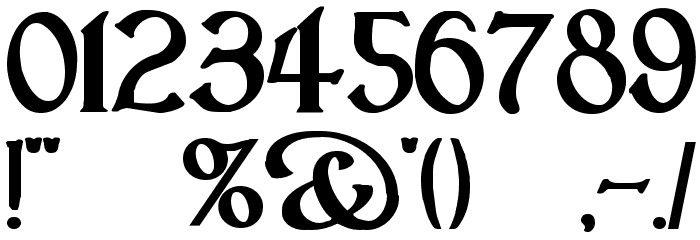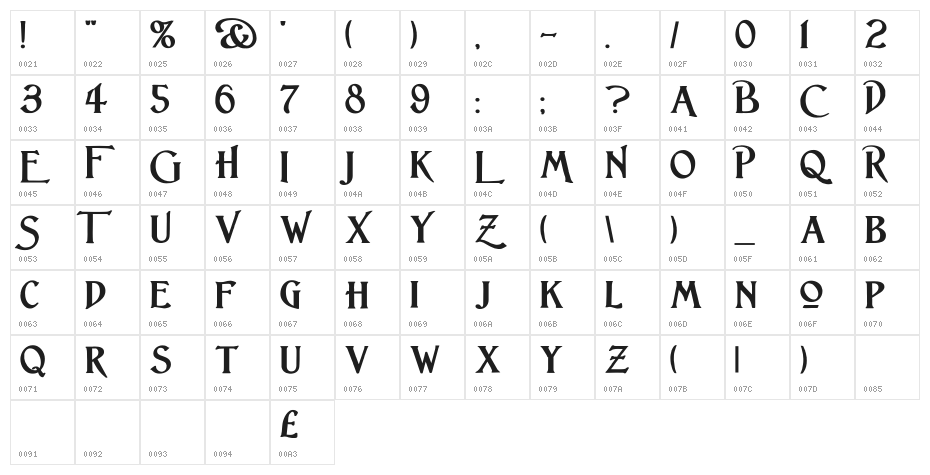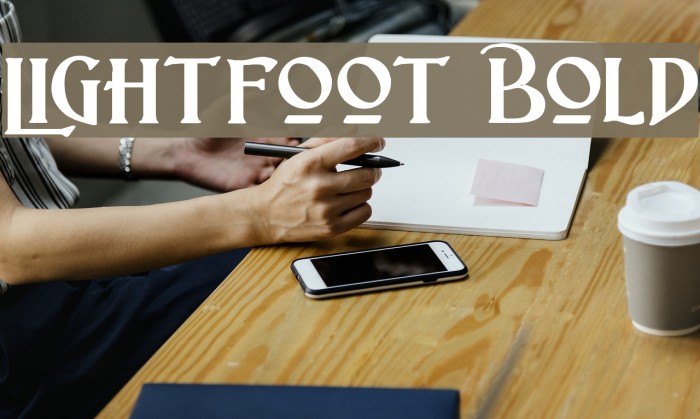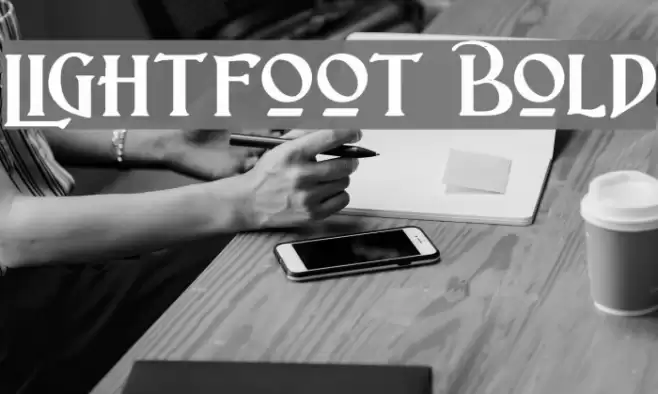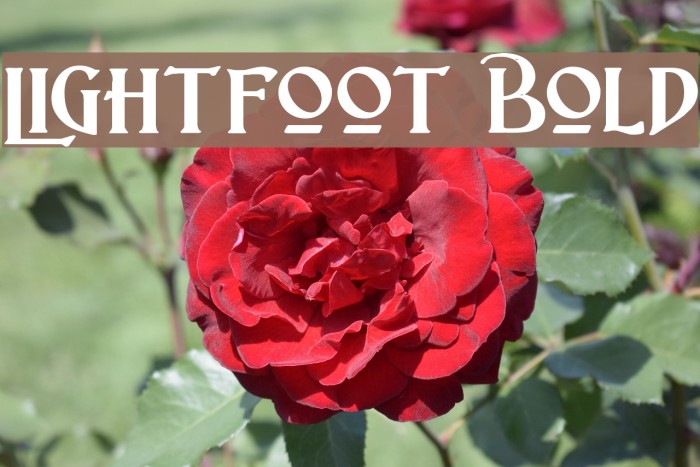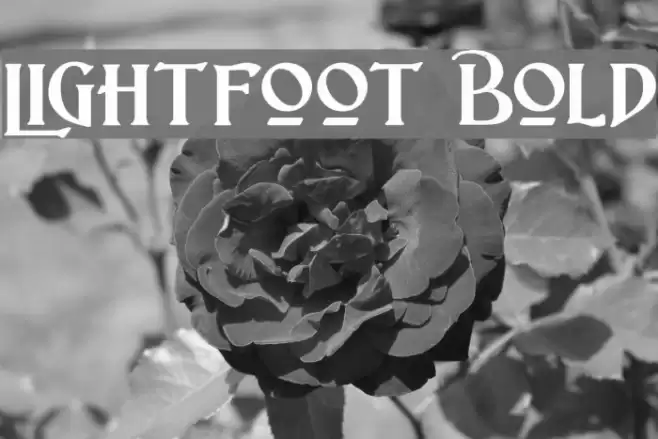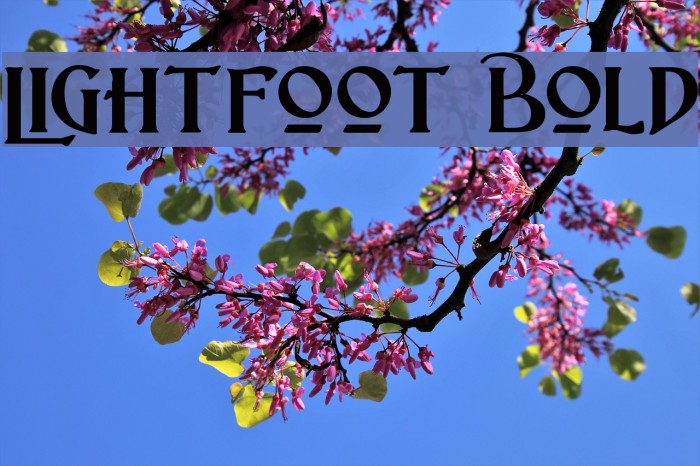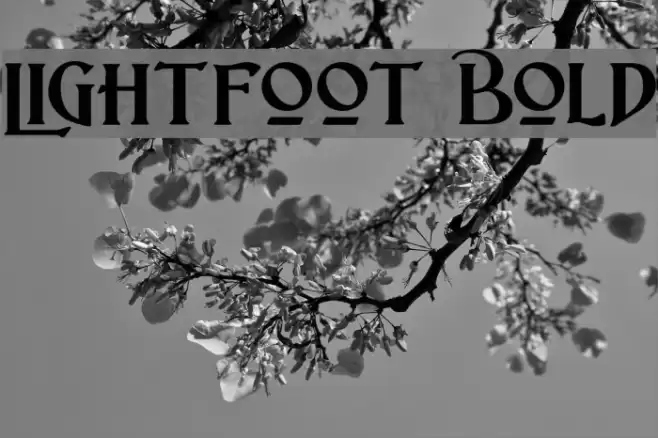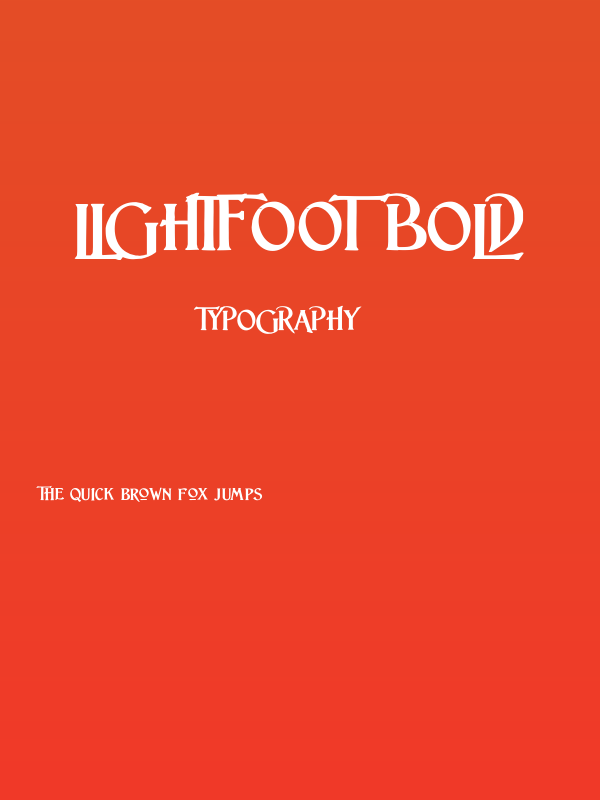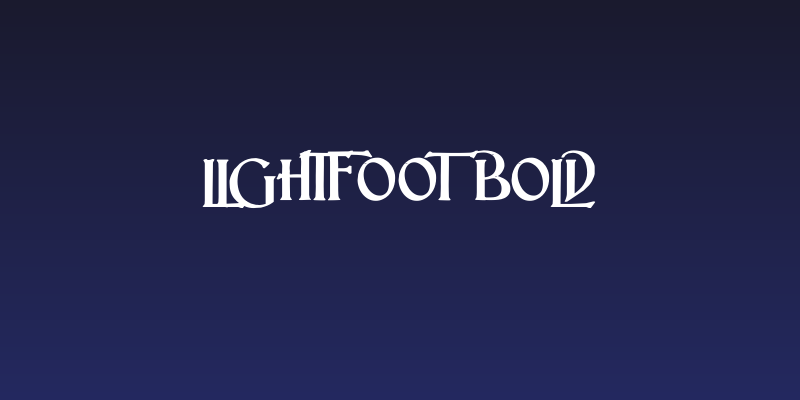
Lightfoot Bold Font
Lightfoot Bold Description
This font features a bold and dynamic style with a distinct flair, characterized by sharp angles and a slightly medieval aesthetic. The uppercase letters exhibit a strong presence with unique serifs that add a touch of elegance and drama. The lowercase letters maintain a consistent style, complementing the uppercase with their own distinct curves and angles. Numbers are bold and clear, ensuring readability while maintaining the overall stylistic theme. Special characters are thoughtfully designed, integrating seamlessly with the rest of the font. This font's boldness and unique character make it stand out, suitable for projects that require a touch of historical or fantasy elements.
| Proposed Projects | Ideal for fantasy book covers, historical event posters, or themed branding projects. |